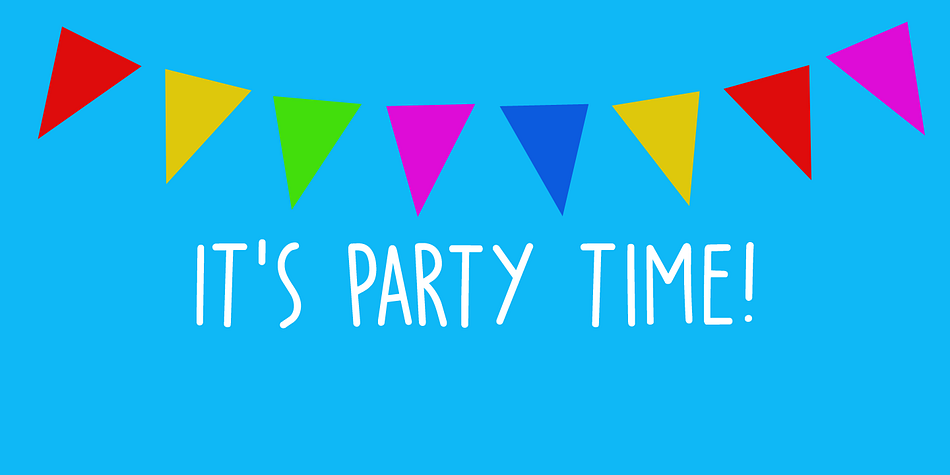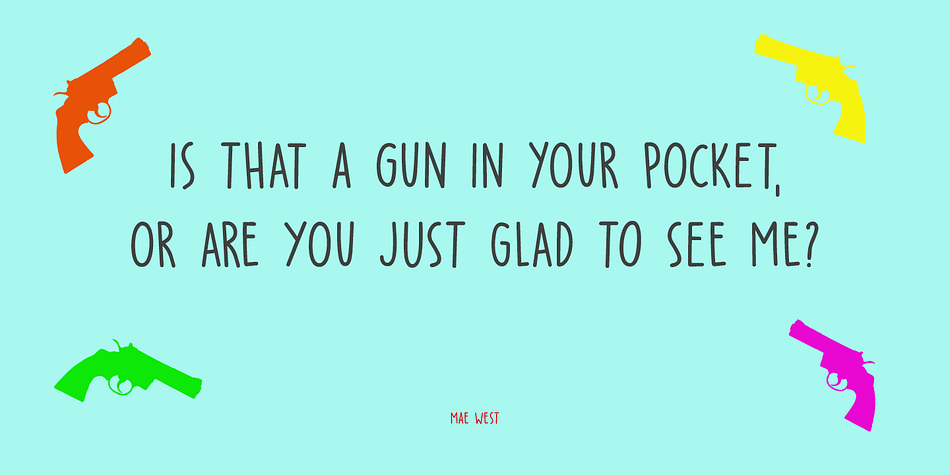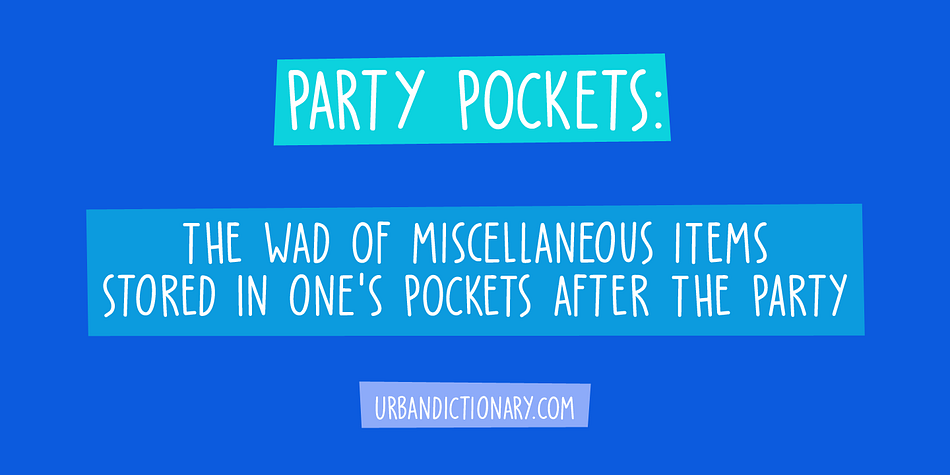
Designed by David Kerkhoff, Party Pocket is a hand display font family. This typeface has two styles and was published by Hanoded.
I was doing the laundry the other day and, as usual, I was going through the pockets of my jeans. After I had emptied my party pockets, I figured it was a great name for a new font!
So, without further ado: here’s Party Pocket: a handwritten all caps font - great for product packaging, greeting cards and posters!